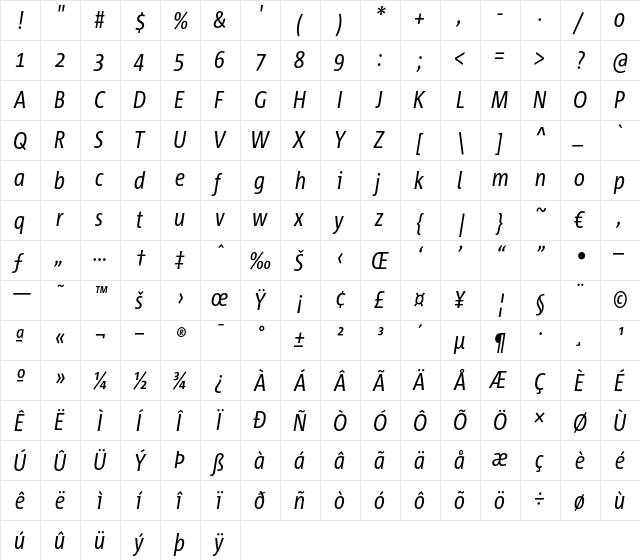
Corpid Cd Italic Font Preview
Corpid Cd Italic
Design Context for Corpid Cd Typeface
Corpid Cd takes a measured approach to typography — its balanced proportions and neutral character make it a reliable workhorse for both digital and print work. Its italic angle brings a sense of urgency and motion to the letterforms.
Pro Tip: Try Corpid Cd for annotation and caption copy alongside an upright companion — the contrast in angle creates a dynamic but ordered typographic system.